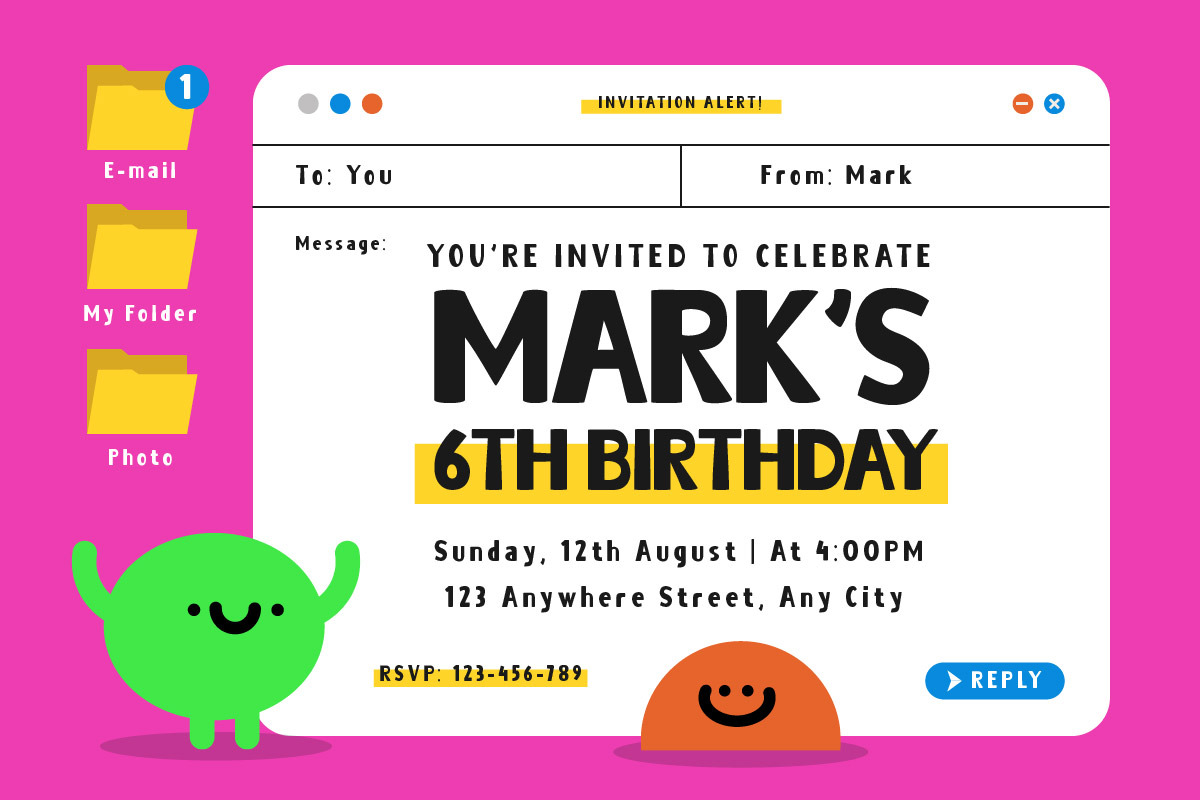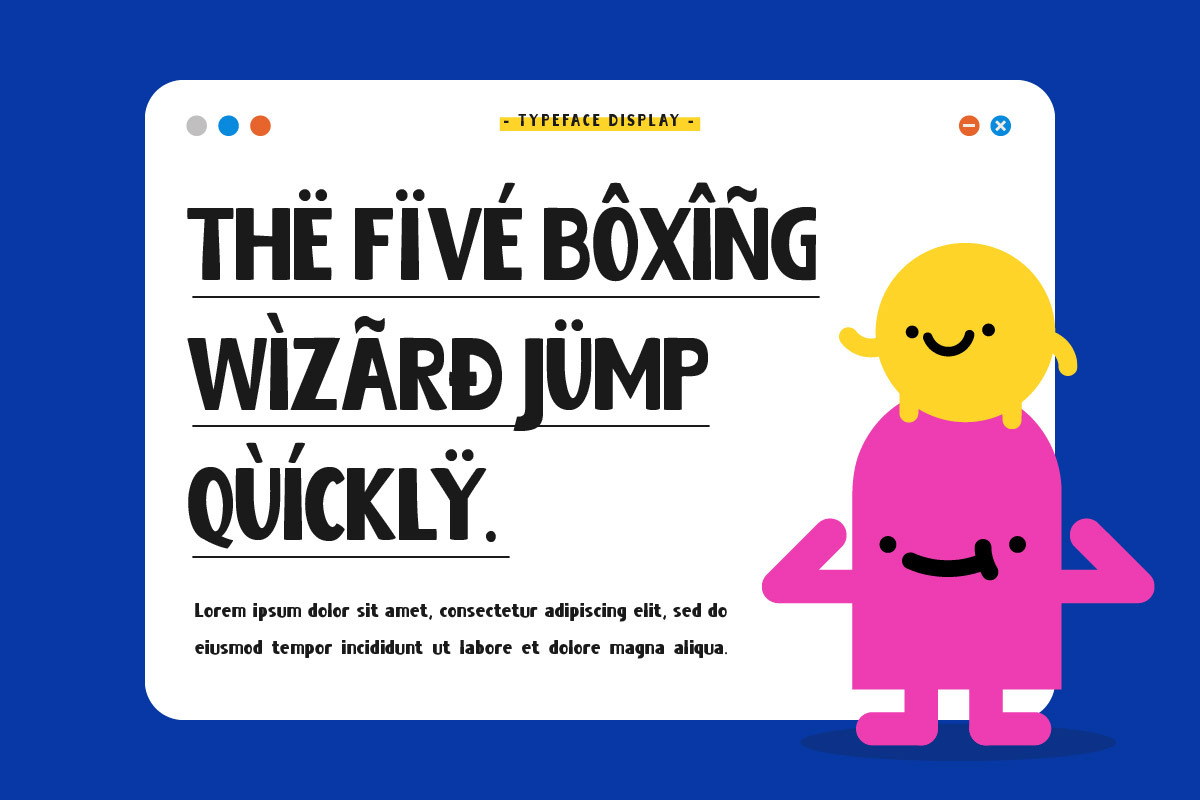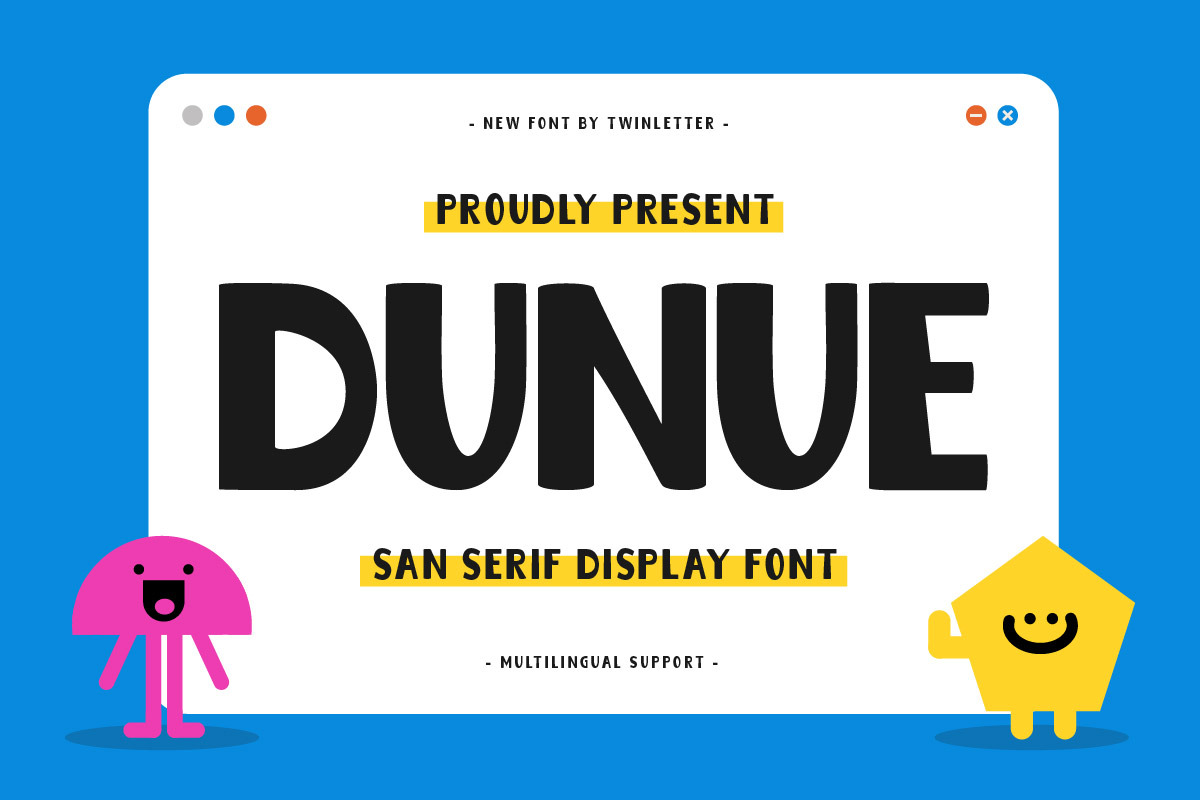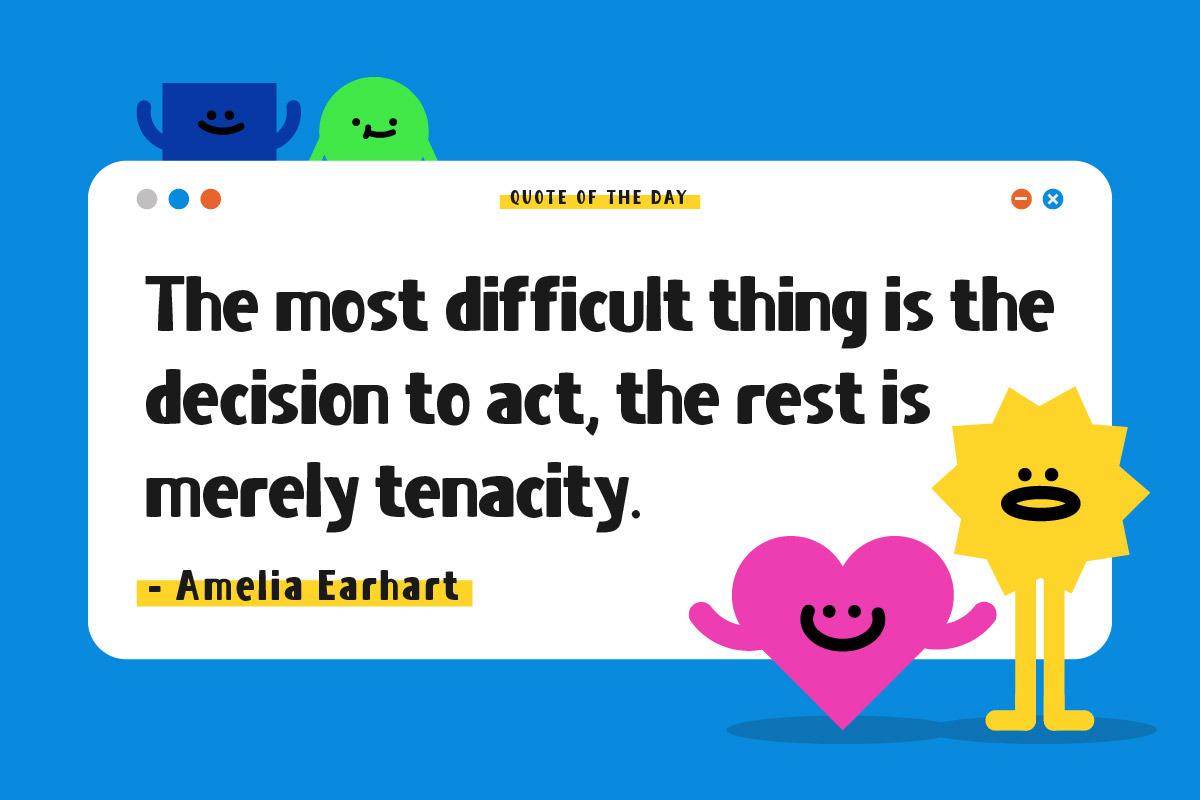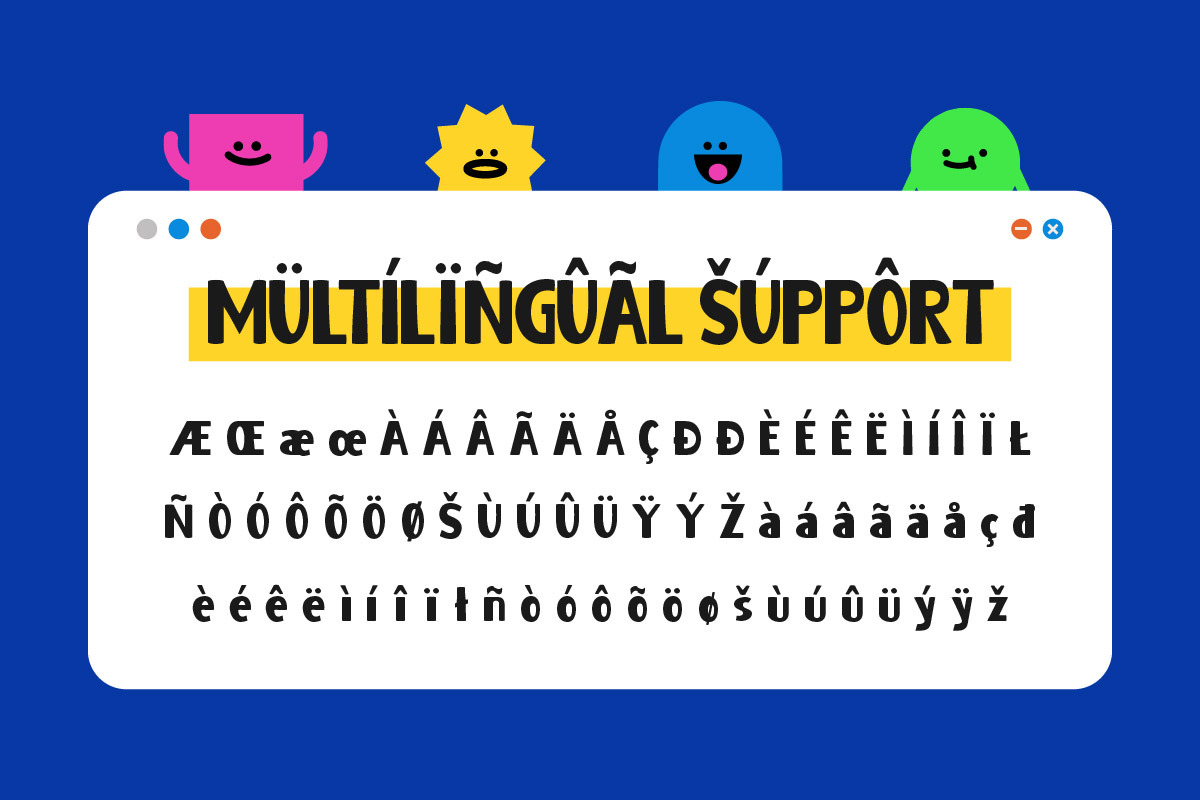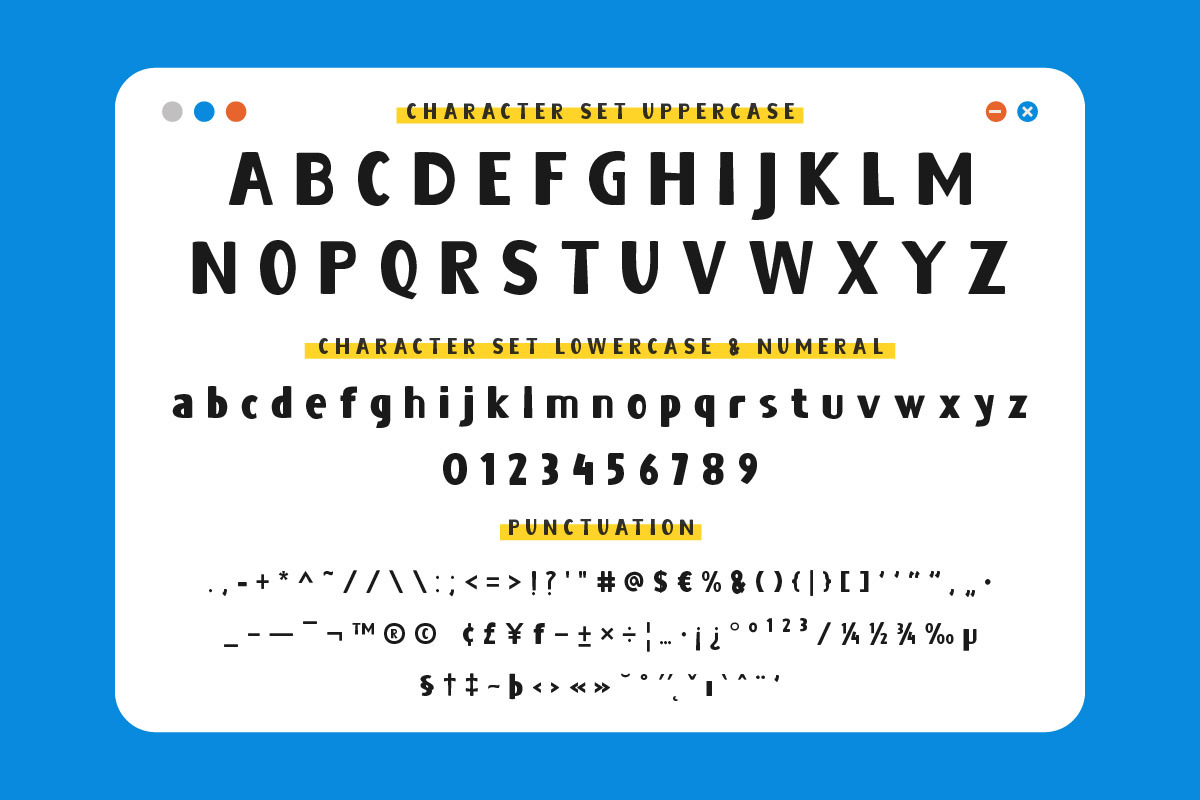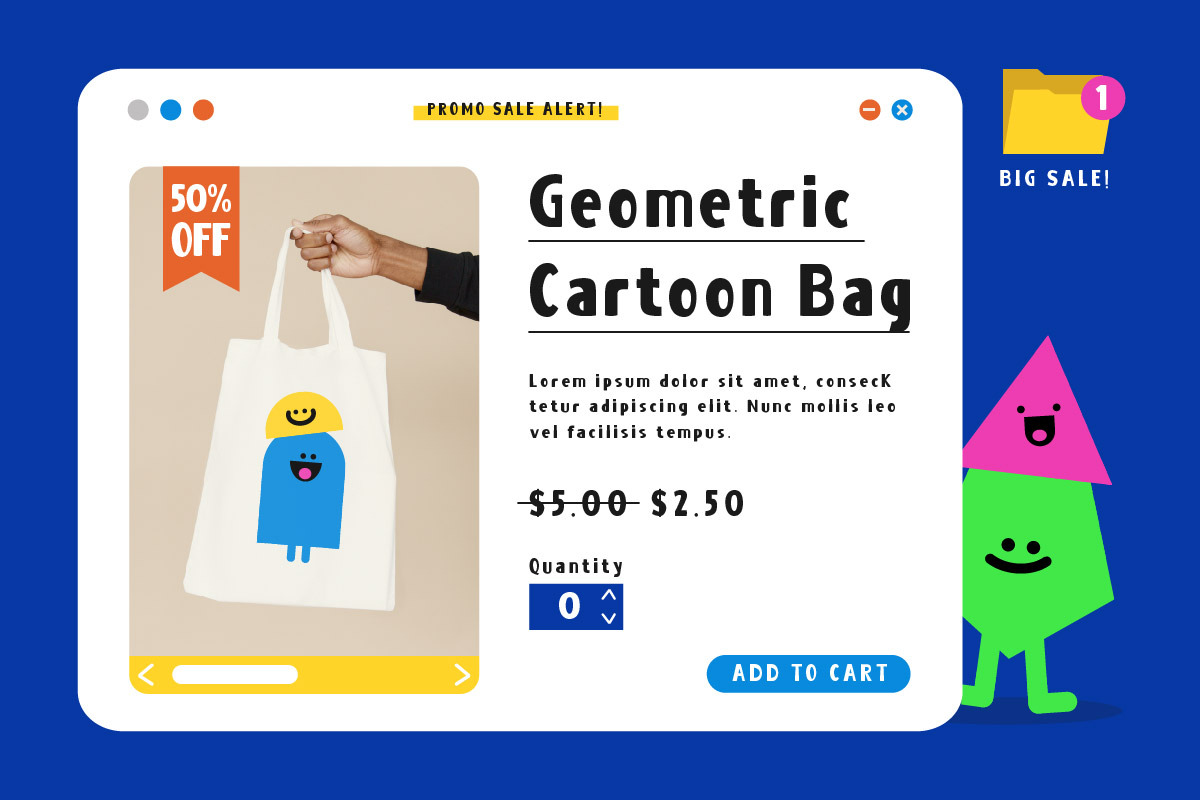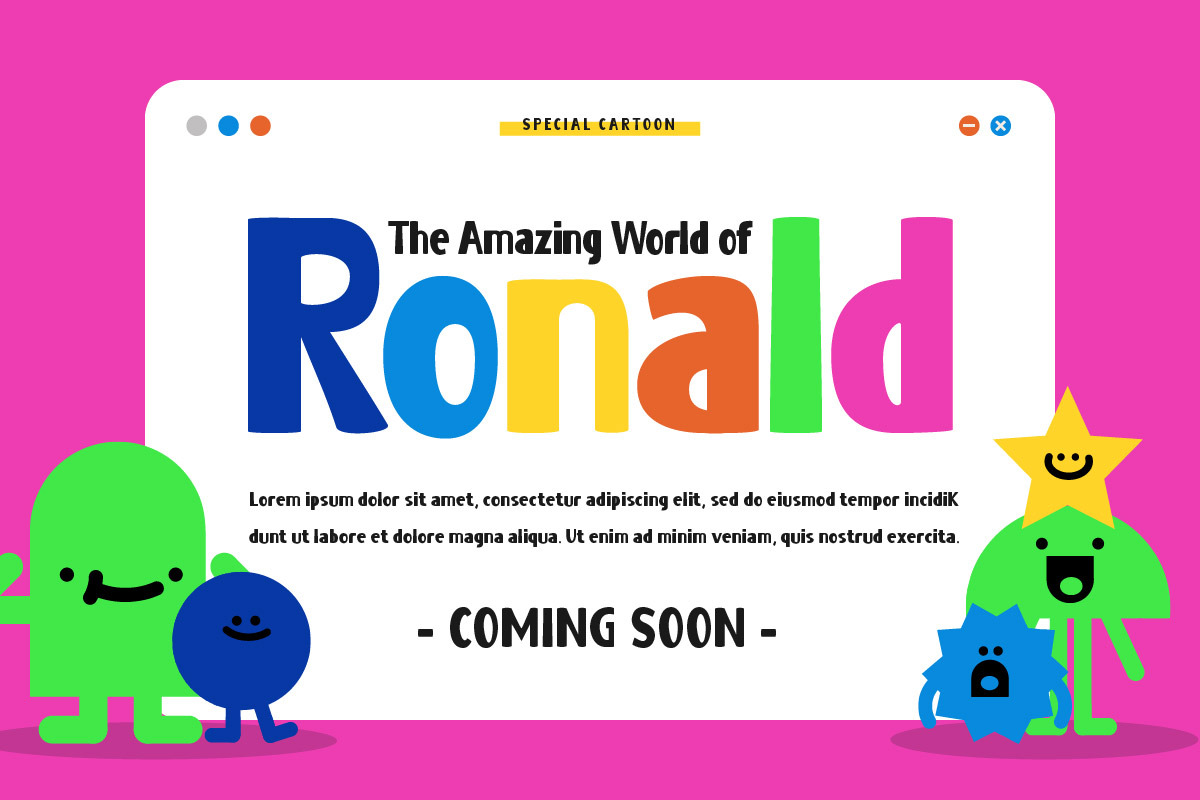
Dunue - Handwritten Font
Dunue is a handwritten font that captures the beauty of natural handwriting. Its flowing, organic characters are perfect for designs that require a personal, handmade feel. With Dunue, your designs will have a natural, authentic look.
- Fonts include Multilingual: Support for 85 languages. Afrikaans, Albanian, Asu, Basque, Bemba, Bena, Breton, Catalan, Chiga, Cornish, Croatian, Czech, Danish, Dutch, Embu, English, Esperanto, Estonian, Filipino, Finnish, French, Friulian, Galician, Gusii, Hungarian, Indonesian, Irish, Italian, Kabuverdianu, Kalenjin, Kamba, Kikuyu, Kinyarwanda, Latvian, Lithuanian, Lower, Sorbian, Luo, Luxembourgish, Luyia, Machame, Makhuwa-Meetto, Makonde, Malagasy, Maltese, Manx, Meru, Morisyen, North, Ndebele, Norwegian Bokmål, Norwegian Nynorsk, Nyankole, Oromo, Polish, Portuguese, Quechua, Romanian, Romansh, Rombo, Rundi, Rwa, Samburu, Sango, Sangu, Scottish, Gaelic, Sena, Serbian, Shambala, Shona, Slovak, Slovenian, Soga, Somali, Spanish, Swahili, Swedish, Swiss German, Taita, Teso, Turkish, Upper Sorbian, Uzbek (Latin), Volapük, Vunjo, Walser, Zulu.